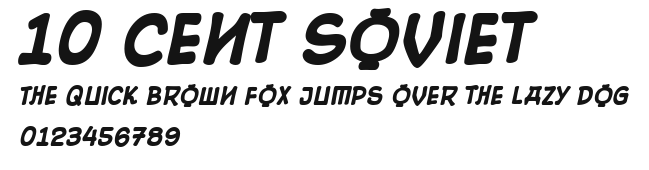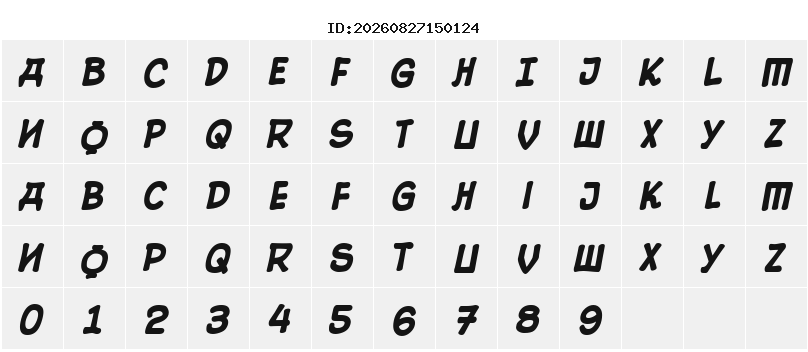
• Font Name: 10 Cent Soviet
• Full Font Name: 10 Cent Soviet Bold
About 10 Cent Soviet.ttf
10 Cent Soviet.ttf is a modern, elegant sans-serif font designed for ultimate readability and visual harmony. Perfect for branding, headlines, web design, and print materials.